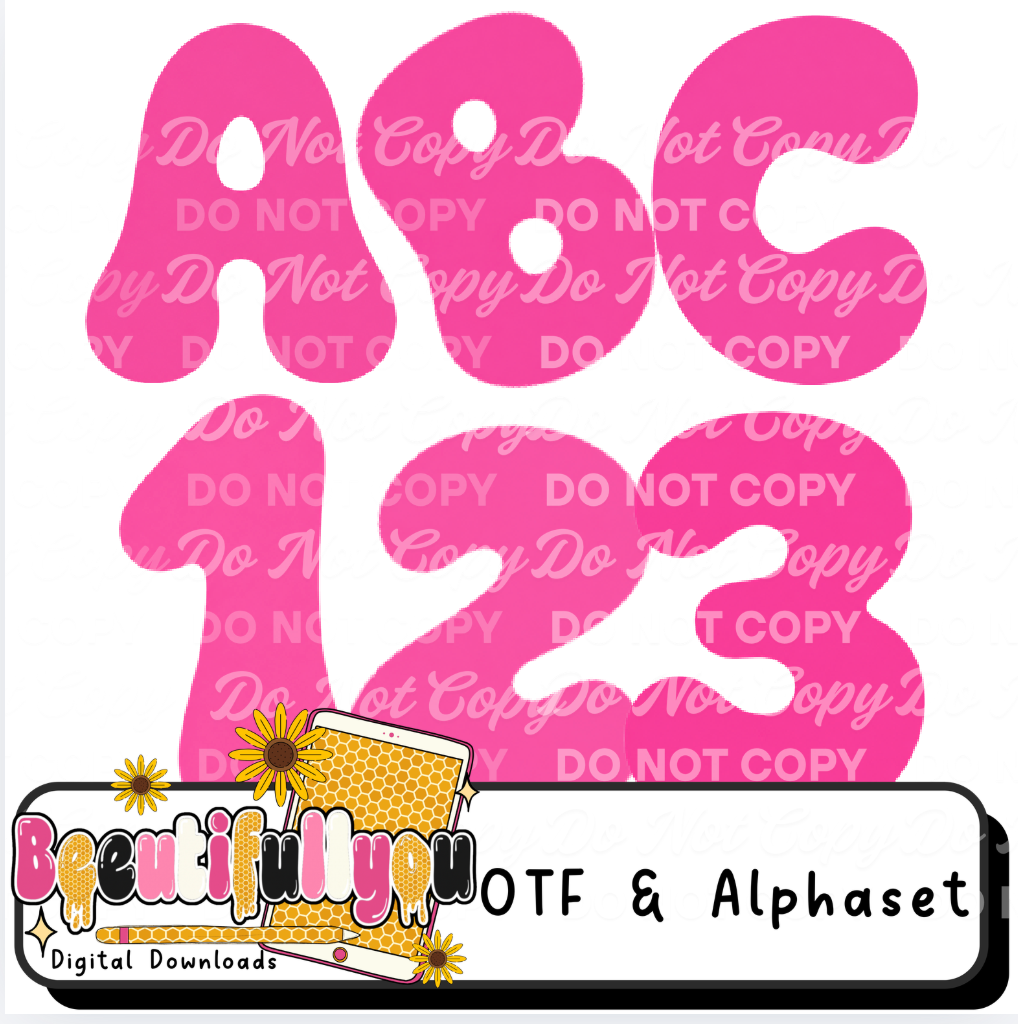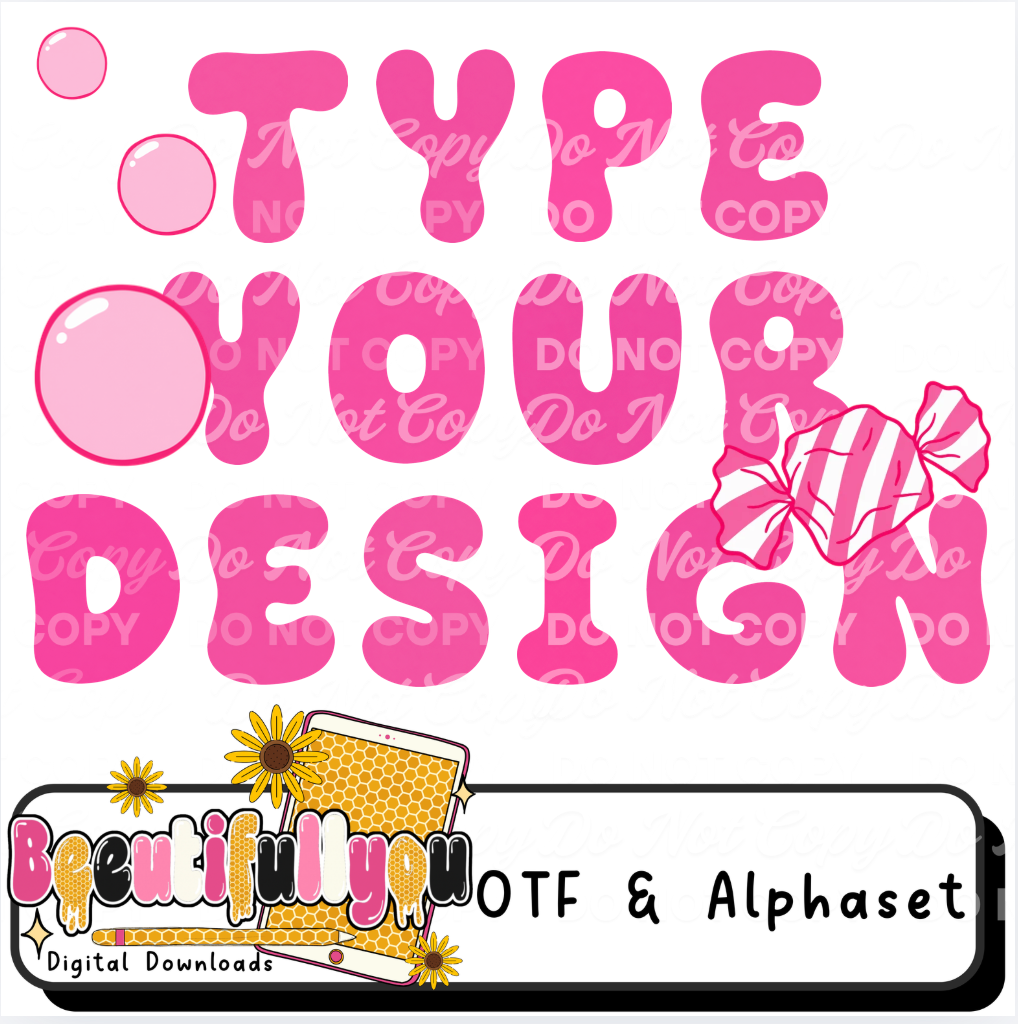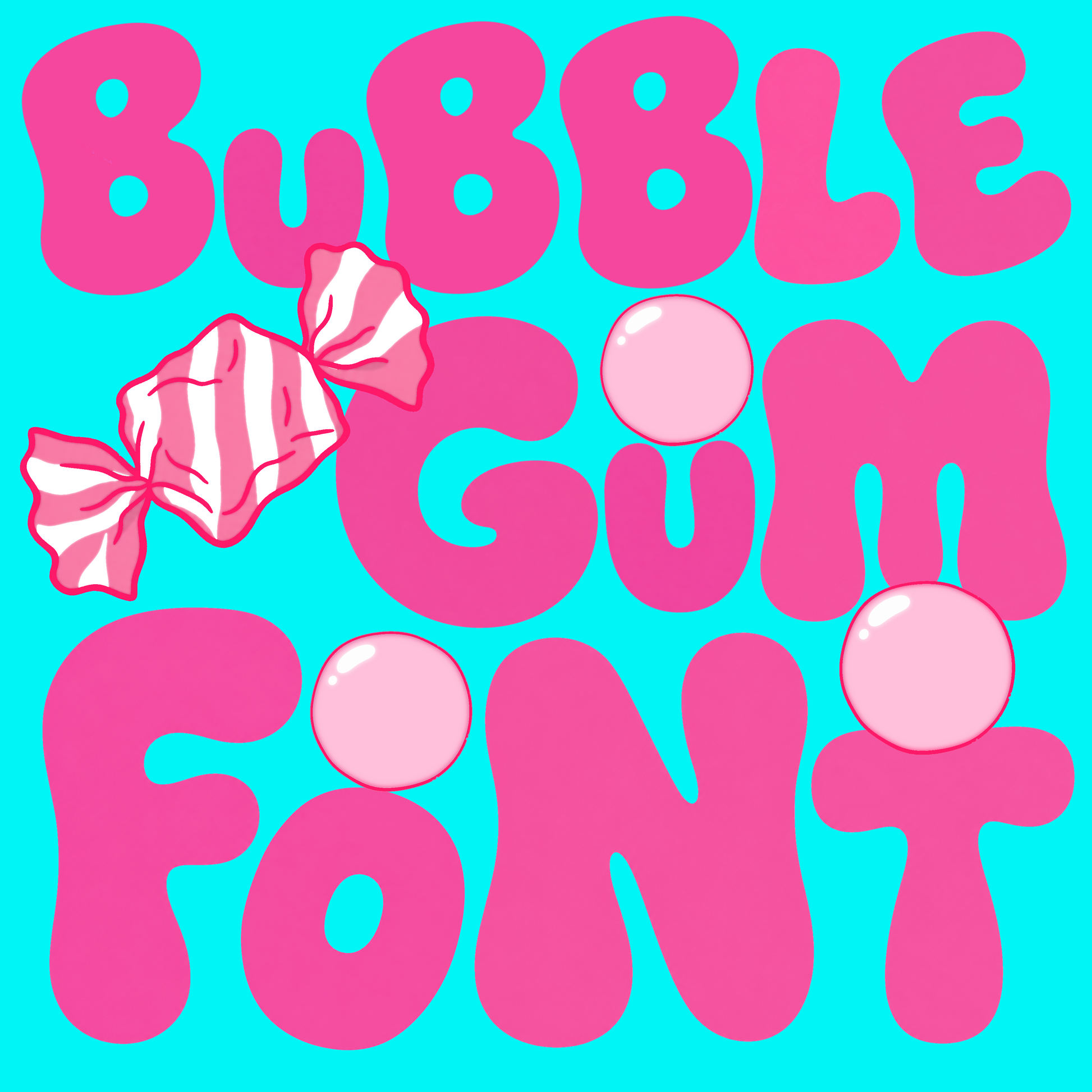
Bubblegum Pop Font Bundle | OTF Font & PNG Alpha Set | Bubblegum Clipart Bundle Included | Cute Girly Font | Pink Candy Font
š¬š©· BUBBLEGUM POP FONT BUNDLE š©·š¬
Sweet, playful, and packed with bubblegum goodness! This bundle includes the installable font, matching PNG alphabet set, and 24 coordinating bubblegum-themed clipart elements so you can create endless cute designs.
ā Uppercase Letters
ā Numbers
ā Symbols Included